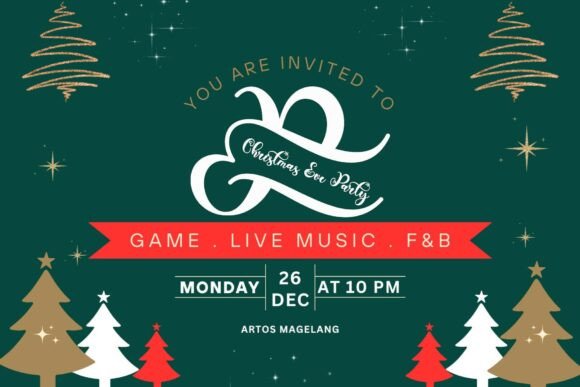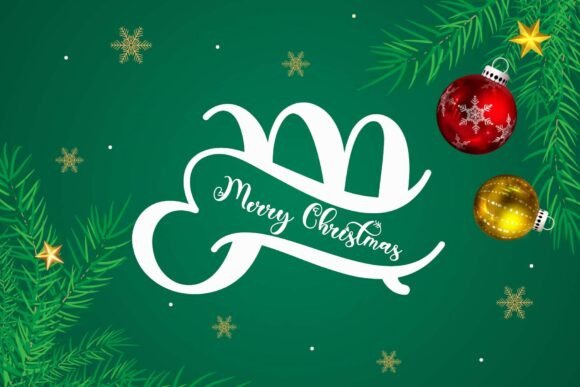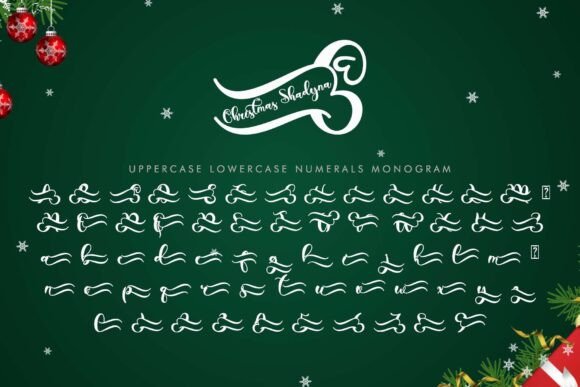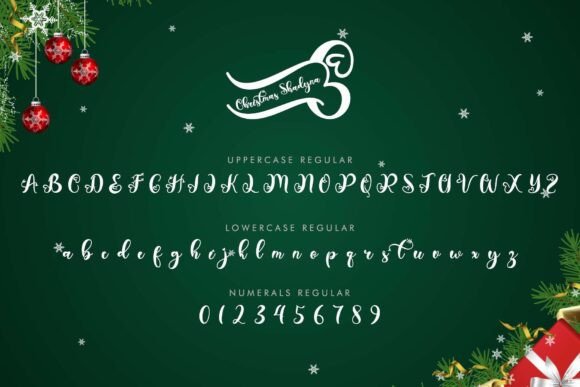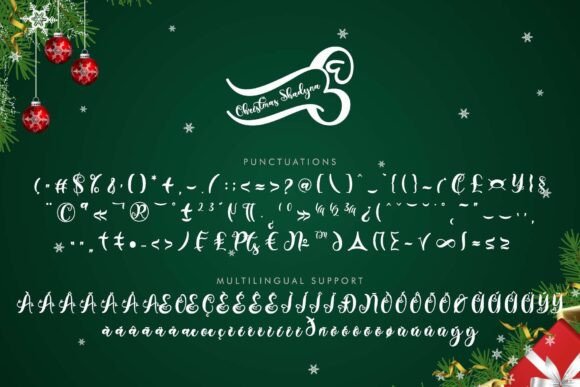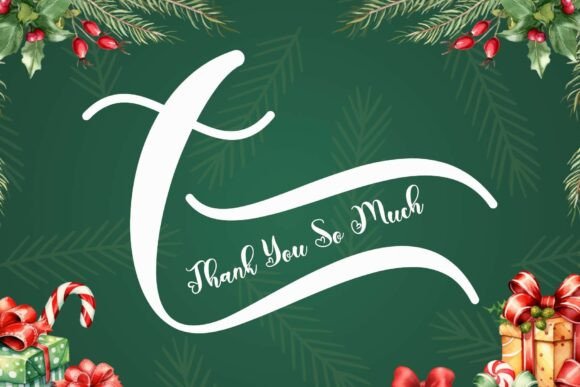
Introduction to Christmas Shadyna Font
The Christmas Shadyna Font is a festive and elegant decorative typeface designed for creating unique monogram compositions with a holiday touch.
Its flowing script style combines graceful curves with ornamental details, making it a perfect choice for projects that need both sophistication and seasonal charm This font works beautifully for personalized gifts, holiday cards, invitations, festive packaging, branding, ornaments, and home decor projects.
Key Features of Christmas Shadyna Font